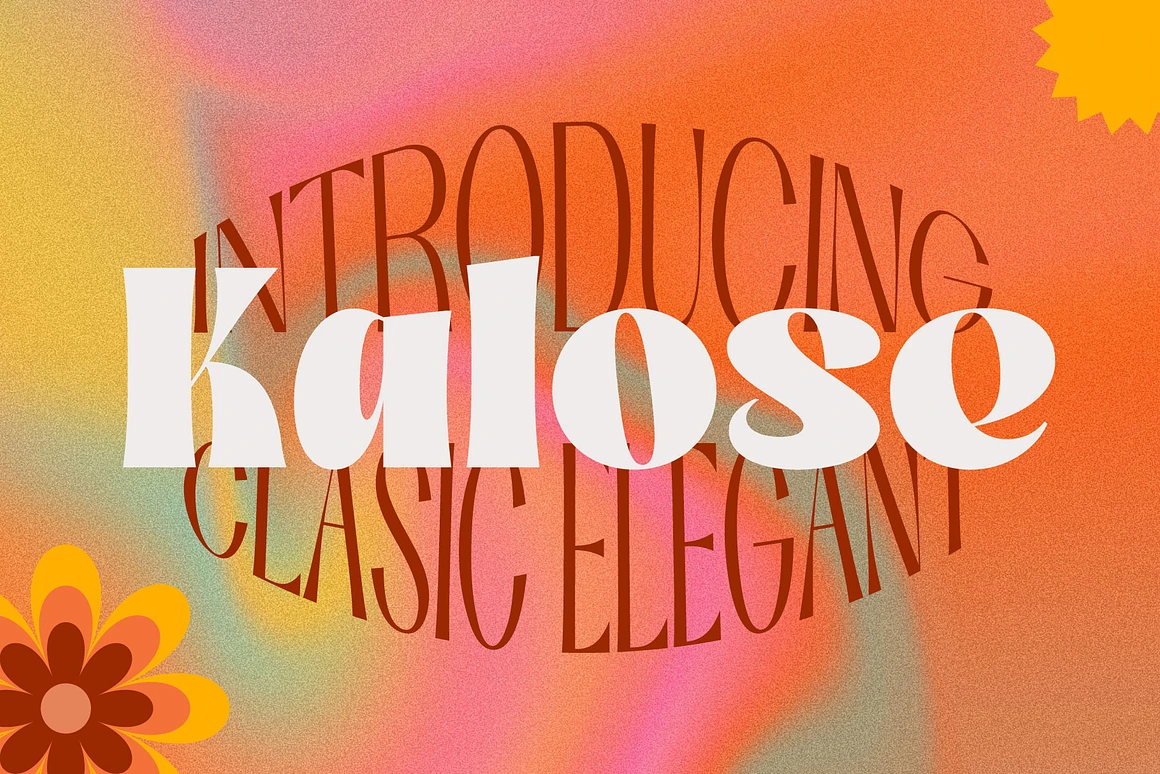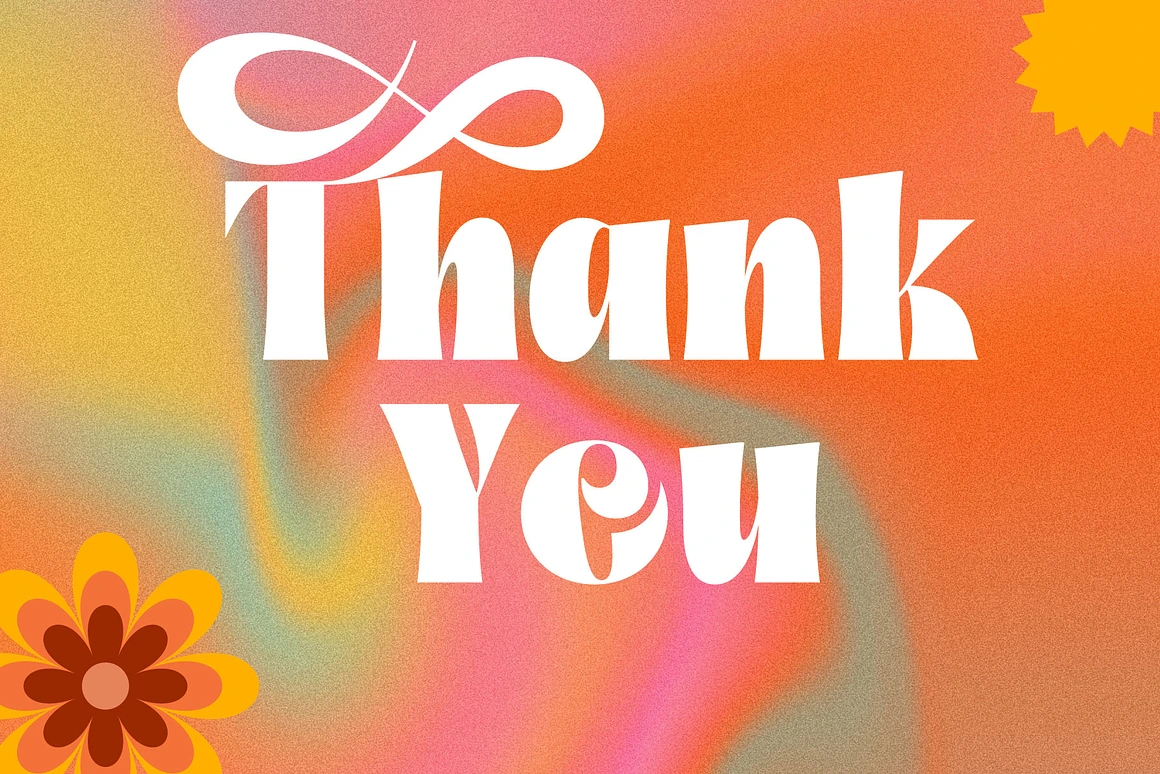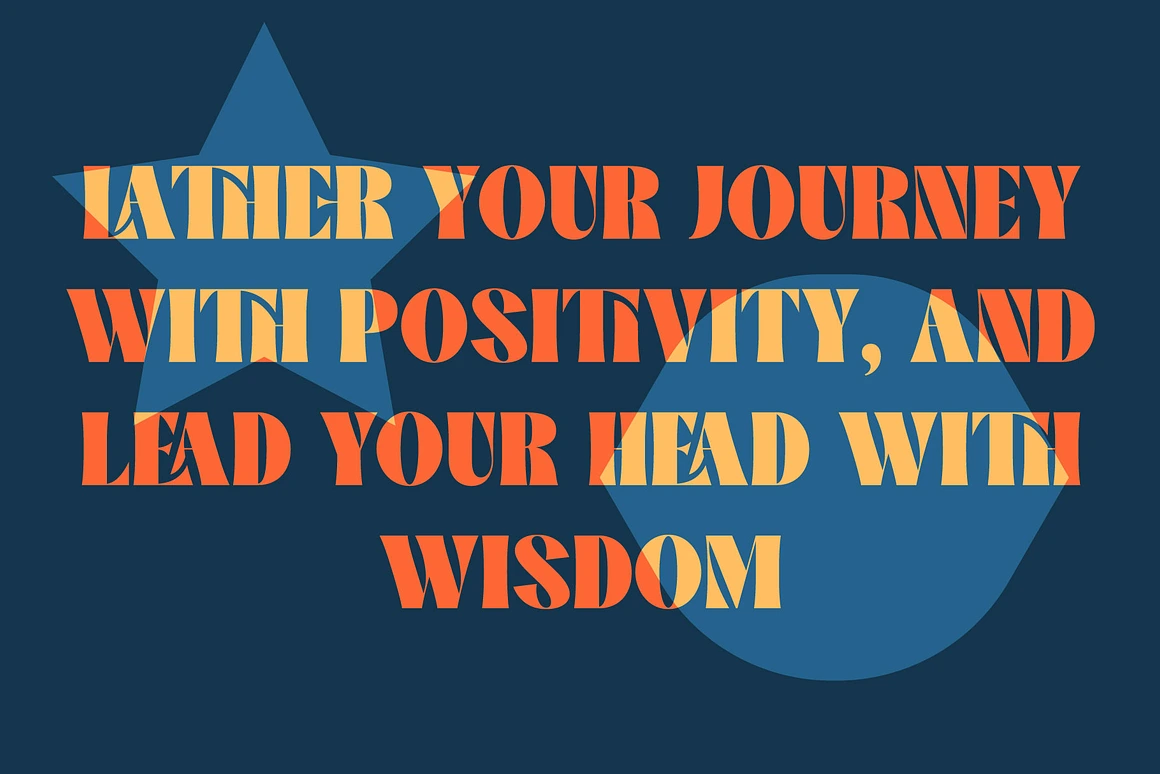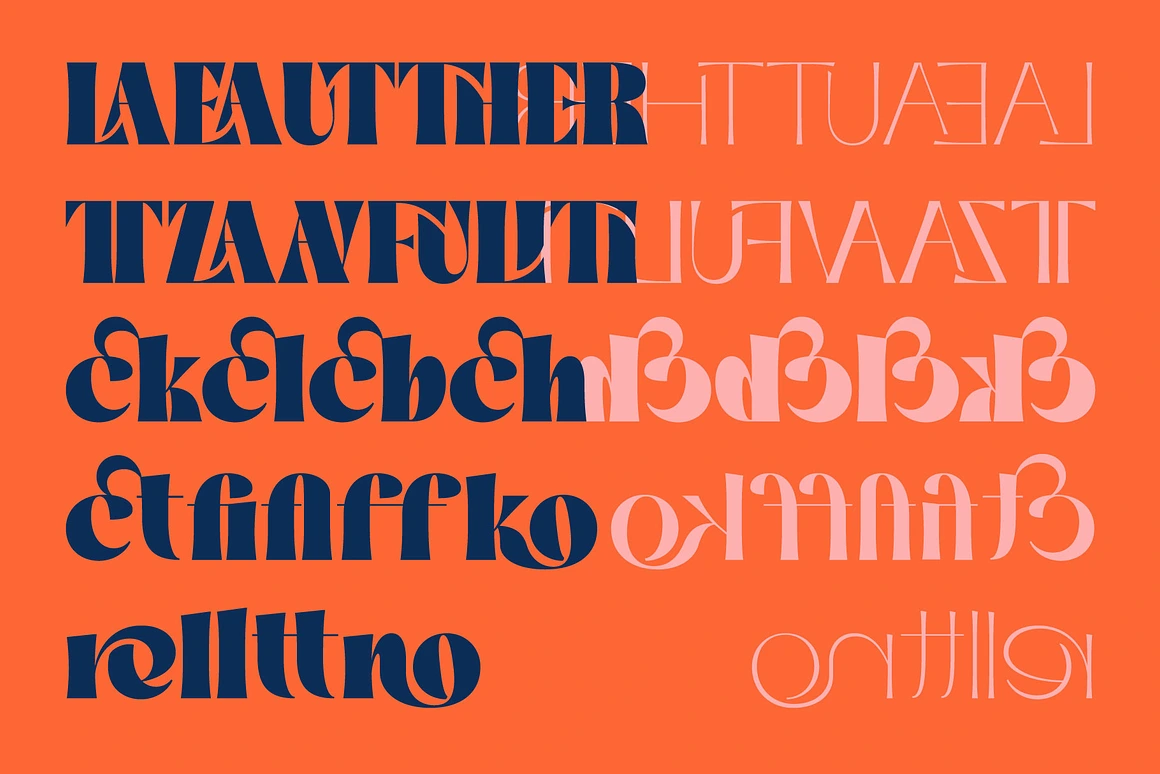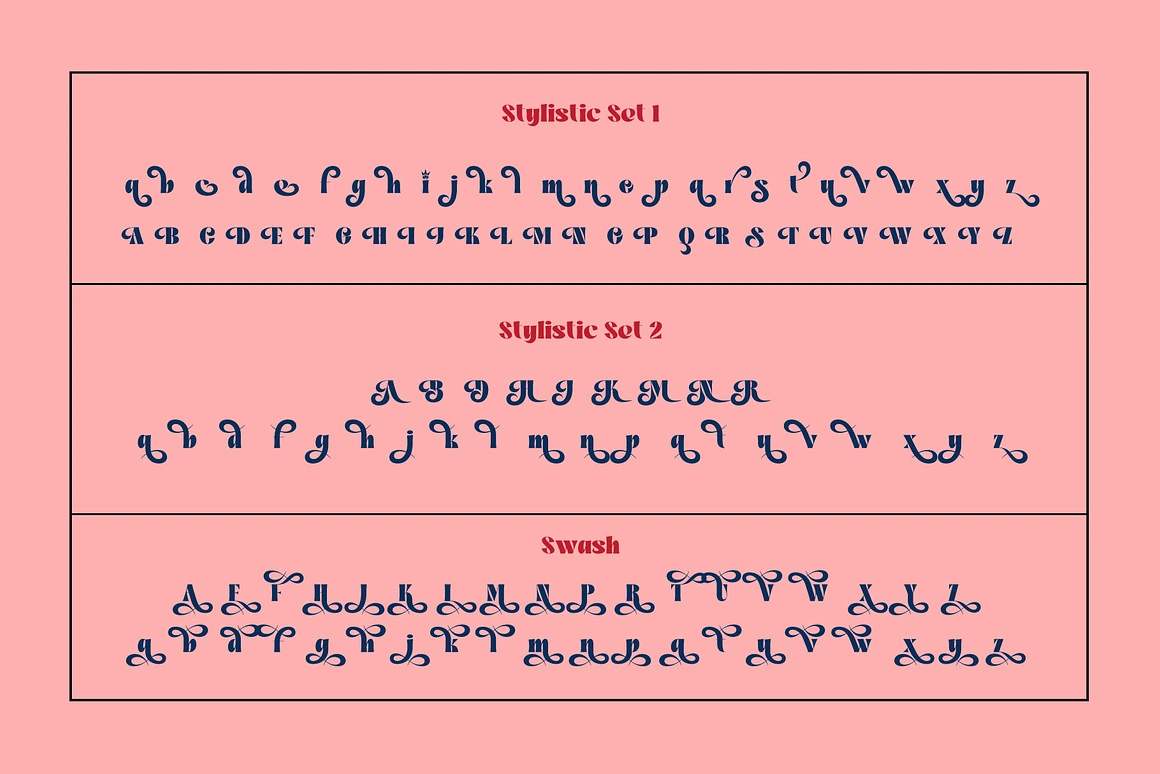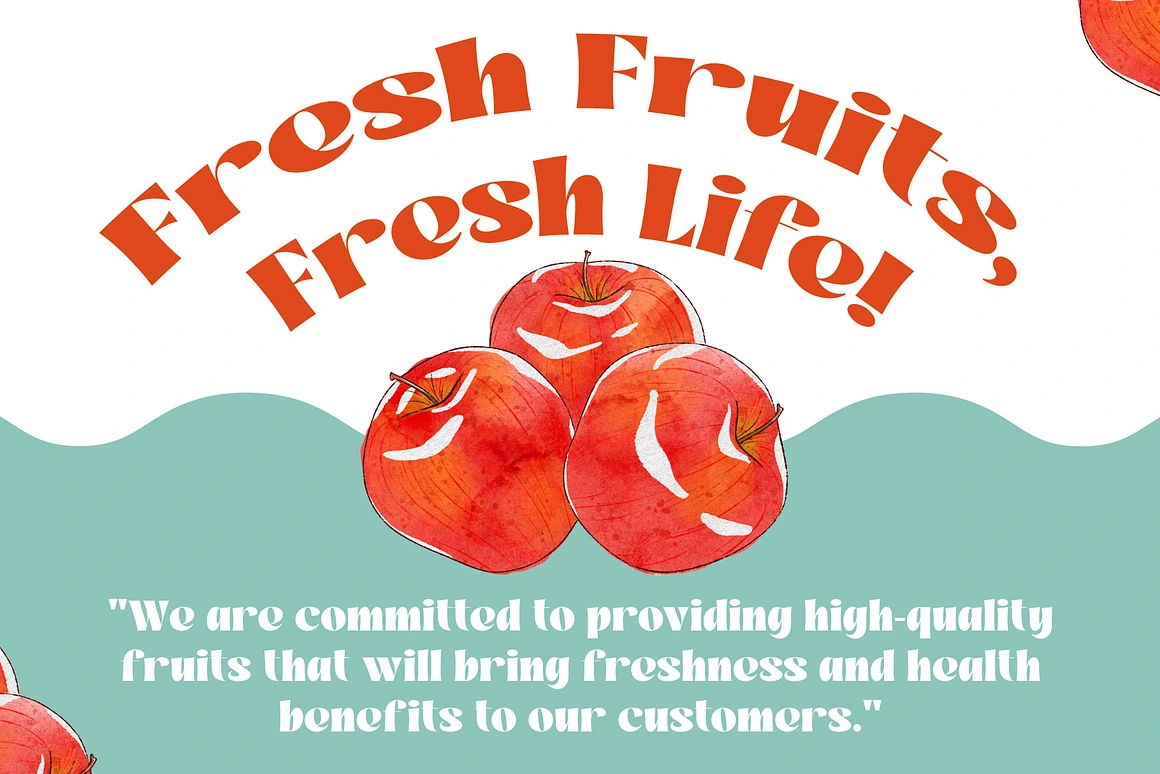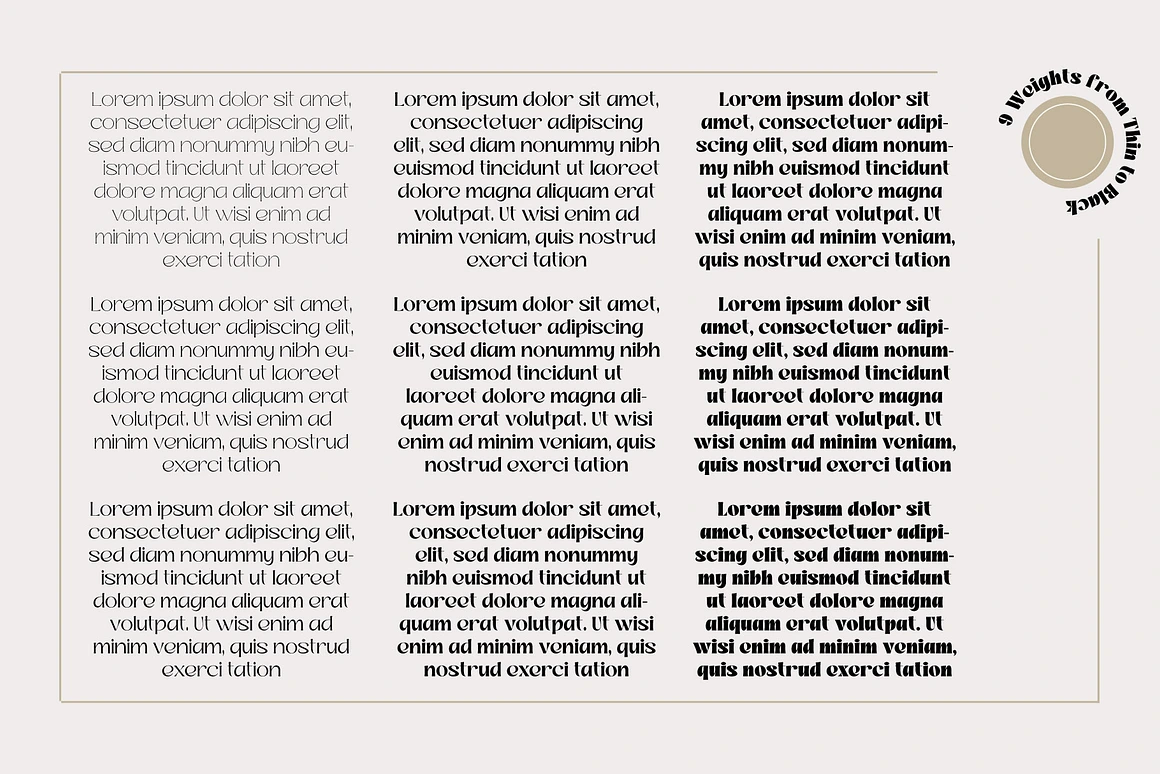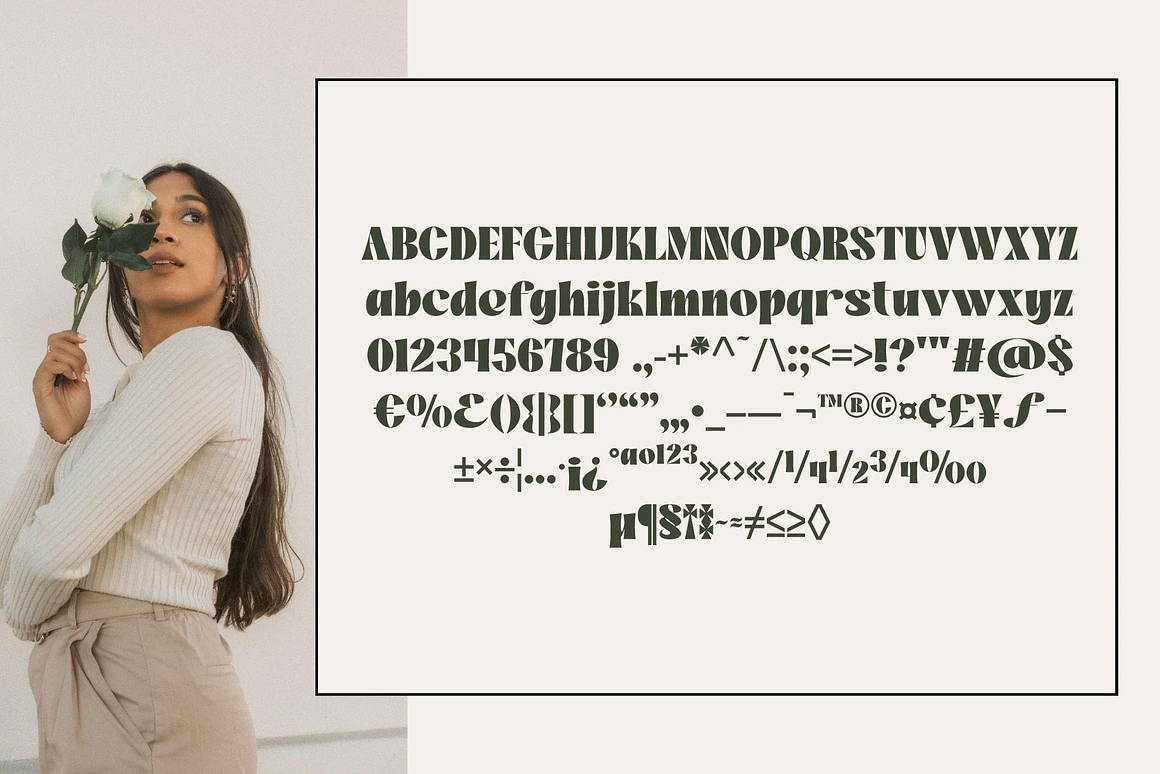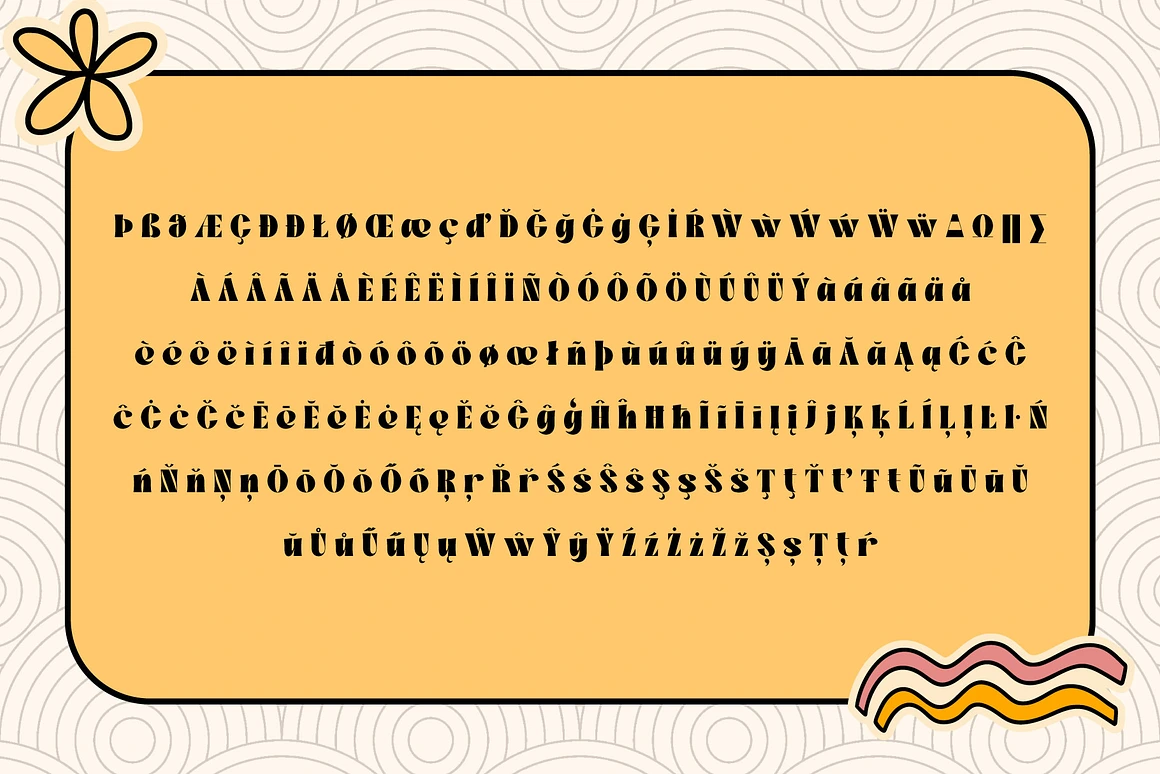
Kalose Classic Elegant Font Family
Kalose contains 9 styles and family package options.
Kalose Classic Elegant Font Family
Take your design up a notch with the Kalose Classic Elegant Font Family, a beautifully crafted typography set that achieves flawlessness with each line. Tailored for designers seeking diversity without losing out on sophistication and legibility, Kalose delivers. It offers an impressive range of nine different weights, from Thin to Black, ensuring your design maintains its elegance while adapting seamlessly to any situation or message.
9 Font Weights: Thin, Extra Light, Light, Regular, Medium, Semi Bold, Bold, Extra Bold, and Black.
Kalose represents an investment in sophistication and professionalism. This comprehensive package equips you to add the ideal final touch to every one of your design initiatives.